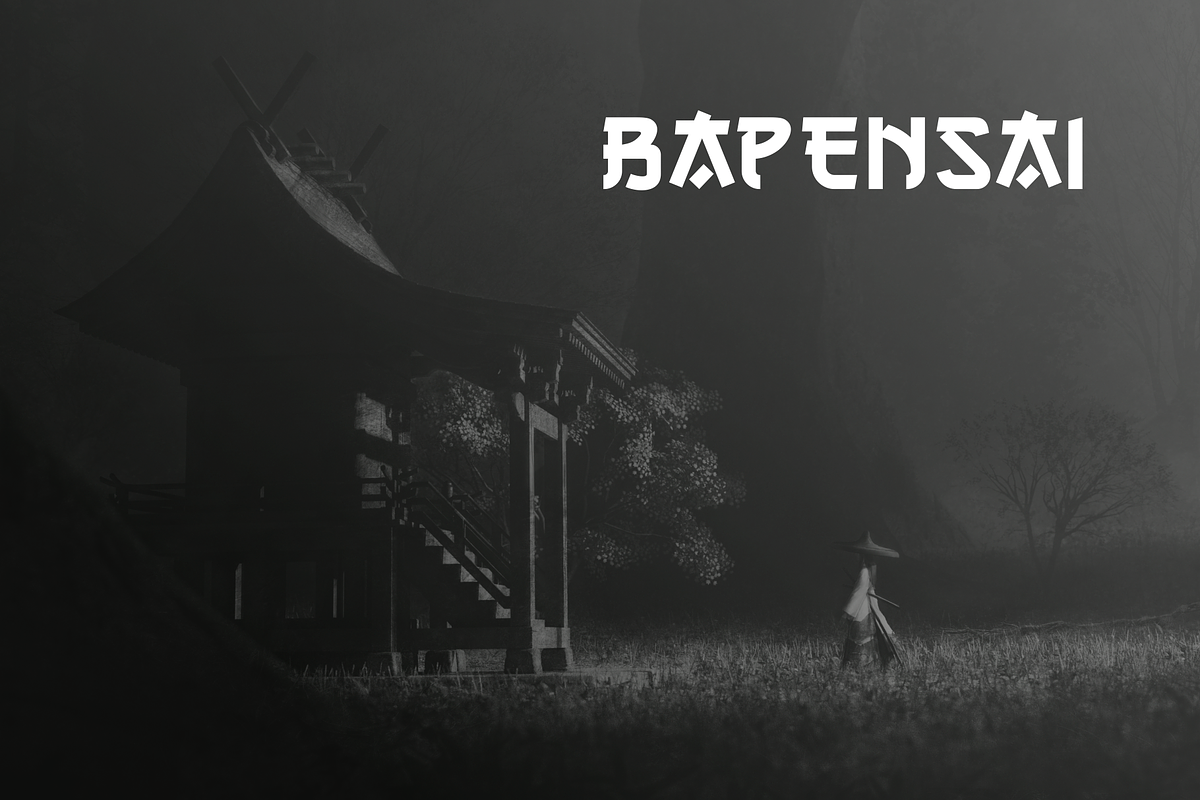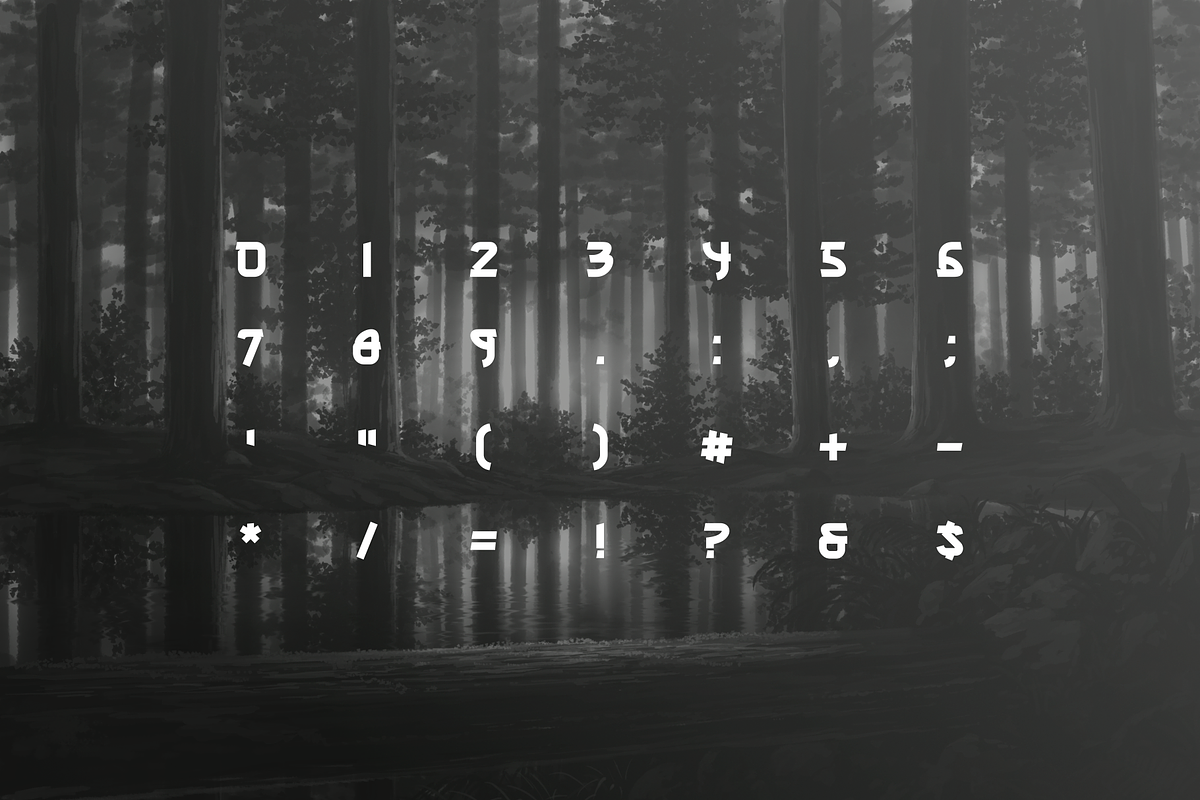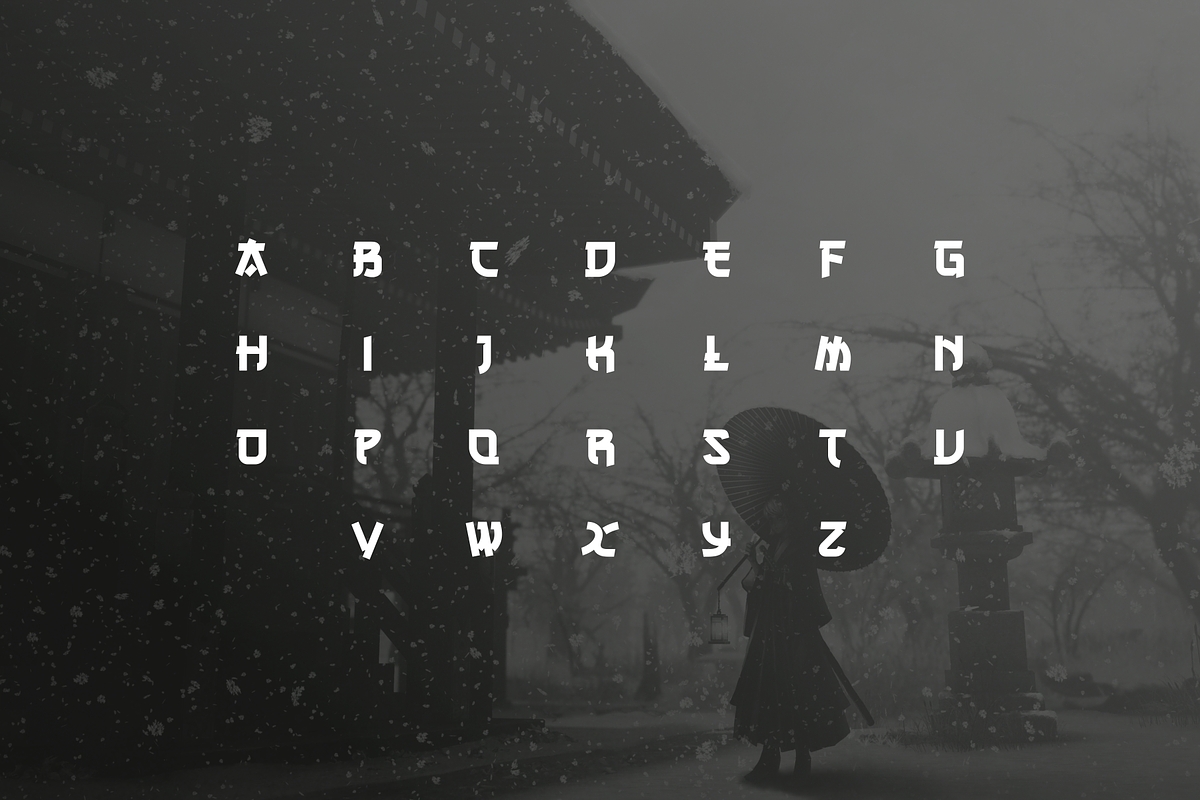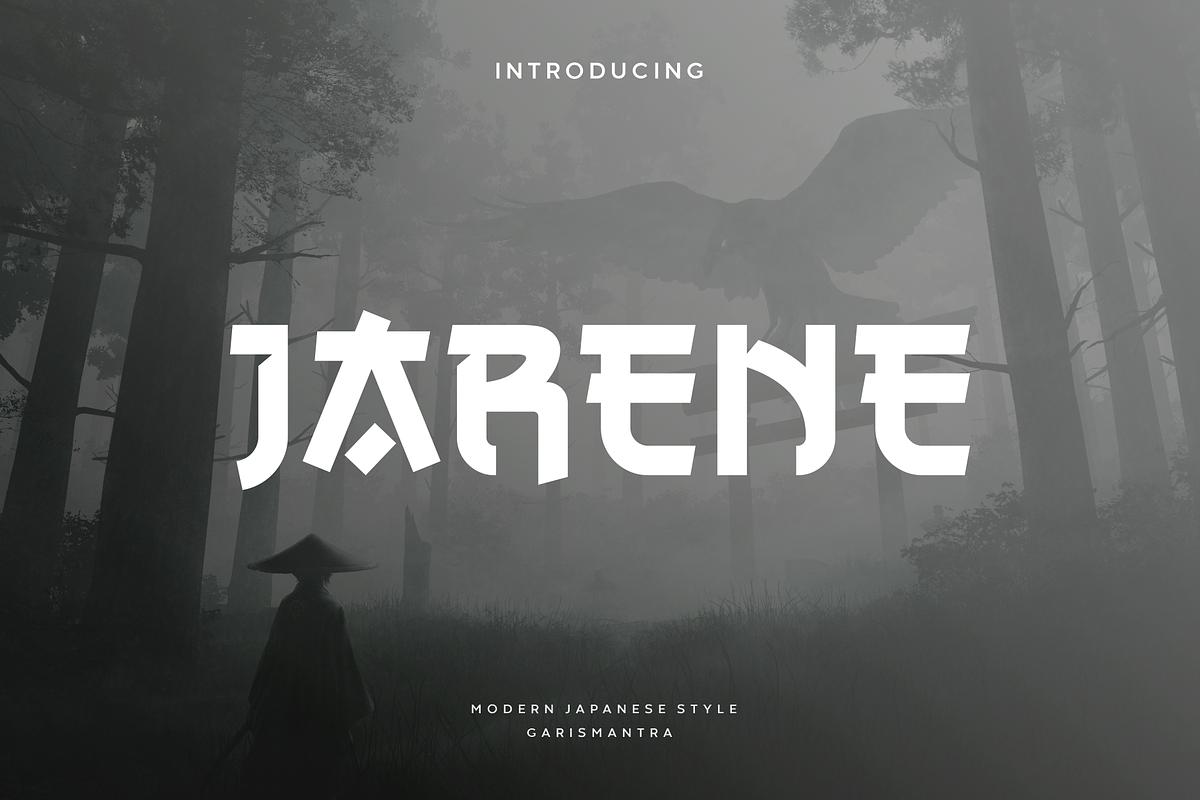
Jarene
Jarene is inspired by Japanese kanji fonts, with a modern English style. The dynamic shape between straight and curved lines makes it look more professional, reminds of a ninja wheI see this font. Jarene that goes well with any Japanese, anime or even branding design. Immediately save for your various creative work, cheers!